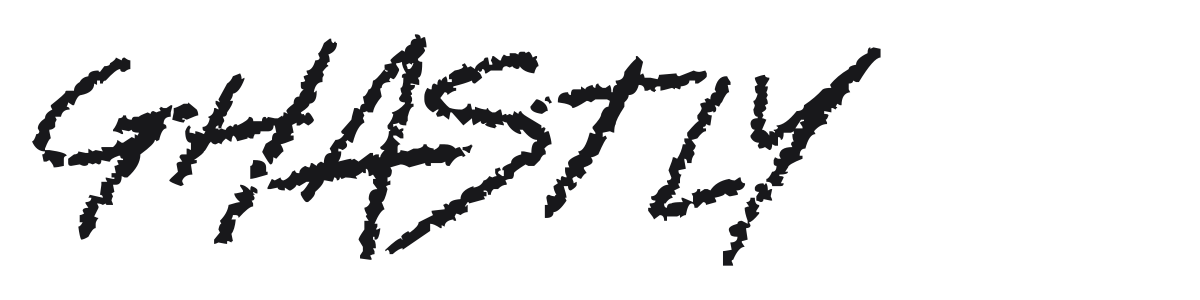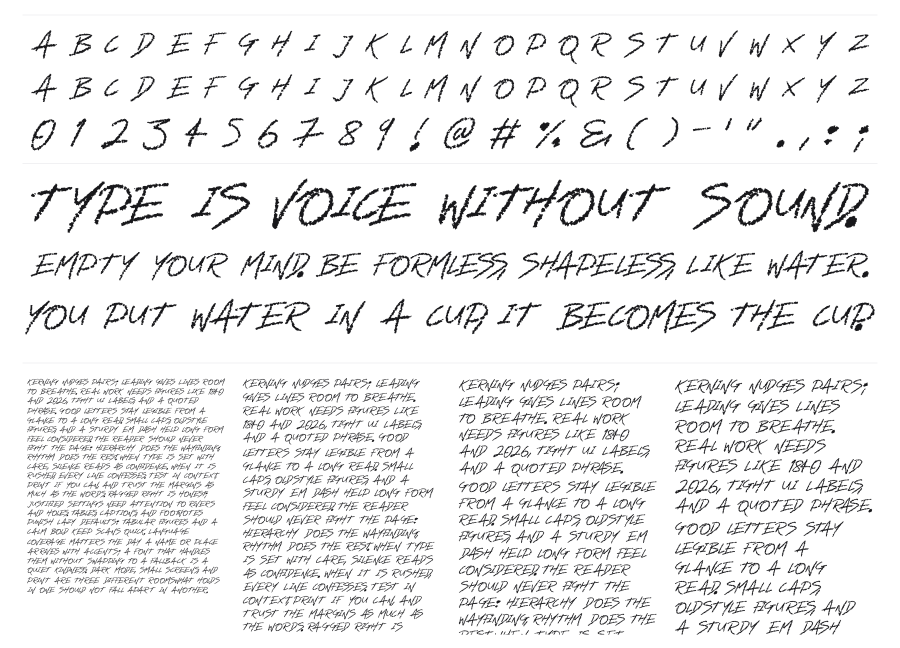
Ghastly
Ghastly is a grunge script with a fiercely scratchy texture, as if scrawled in haste with a dry, fraying brush. The extreme forward slant and erratic fibrous stroke edges give it an urgent, unsettling energy. Strong for horror, punk, and underground aesthetics at large display sizes.